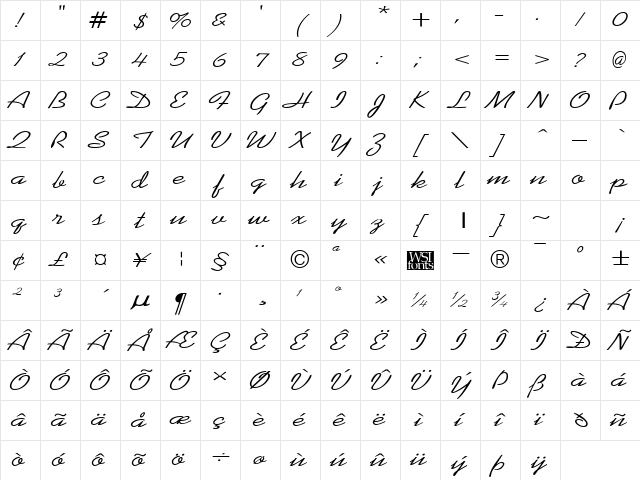
KoffeeWide Regular Free Font
KoffeeWide Regular
Design Context for KoffeeWide
KoffeeWide is a composed and adaptable typeface that performs quietly and consistently across a wide range of design contexts.